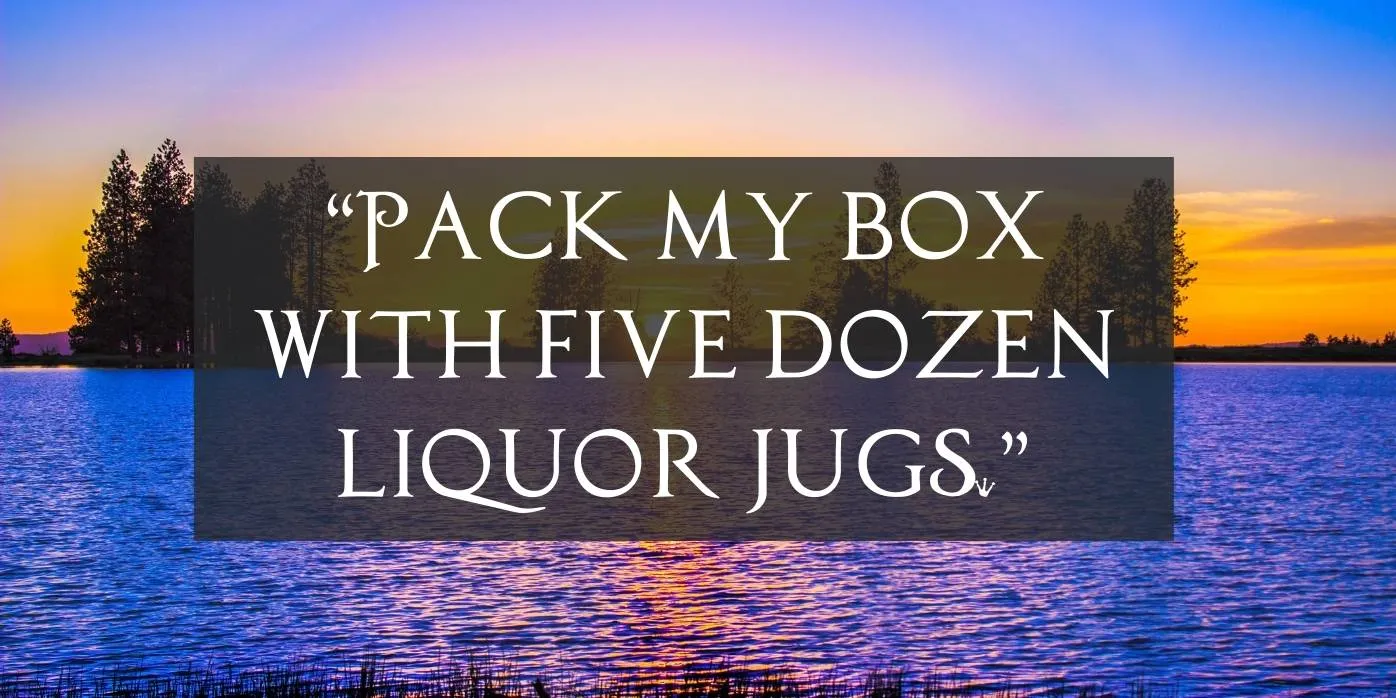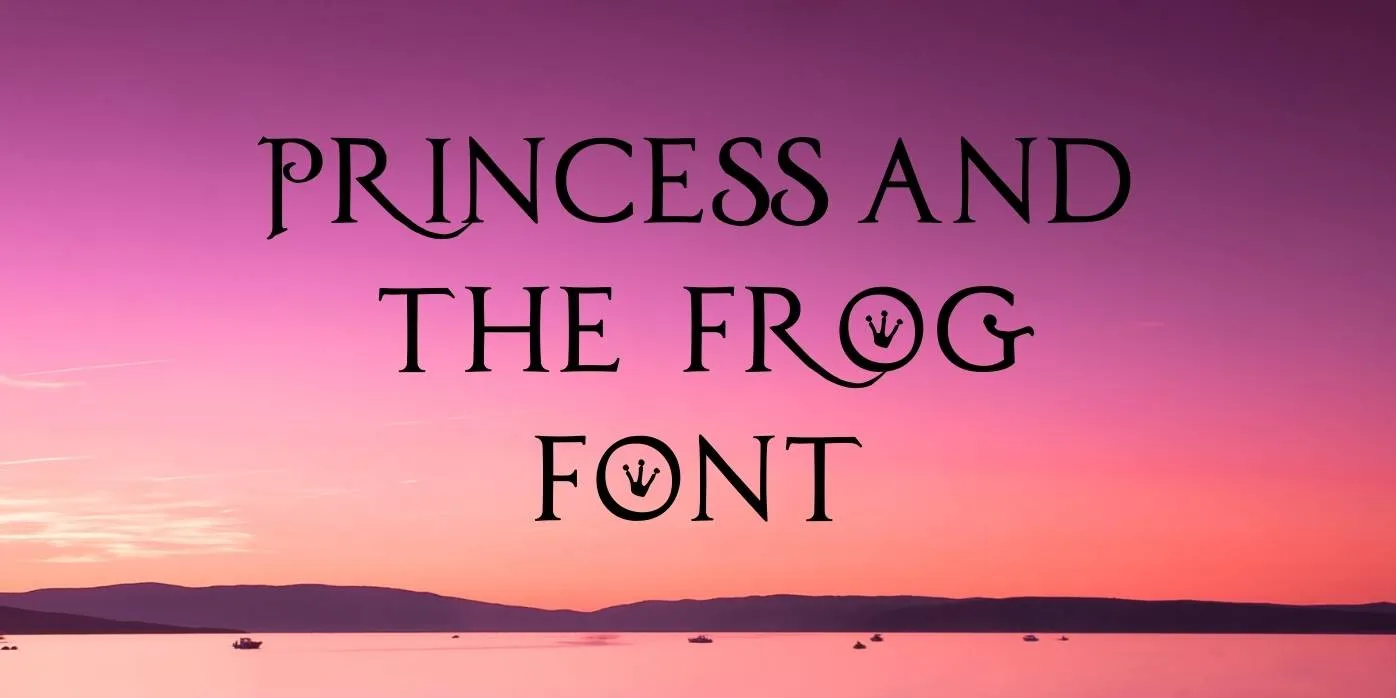
Princess And The Frog Font
Princess And The Frog Font is developed by Esteban. This typeface belongs to the Serif typeface. The design of this font is based on the original movie poster of Disney‚Äôs ‚ÄúThe Princess and The Frog‚Äù. This font is perfect for children’s books, as well as headlines.
This stunning typeface consists of 266 special characters and 153 Unique Glyphs. Some of its famous characters are Uppercase, Lowercase, Numerals, Punctuation, and International Glyphs. Space between its characters is also regulated which makes it easy to read. The beautiful curves and the hanging letters make this typeface more attractive and princess-like.